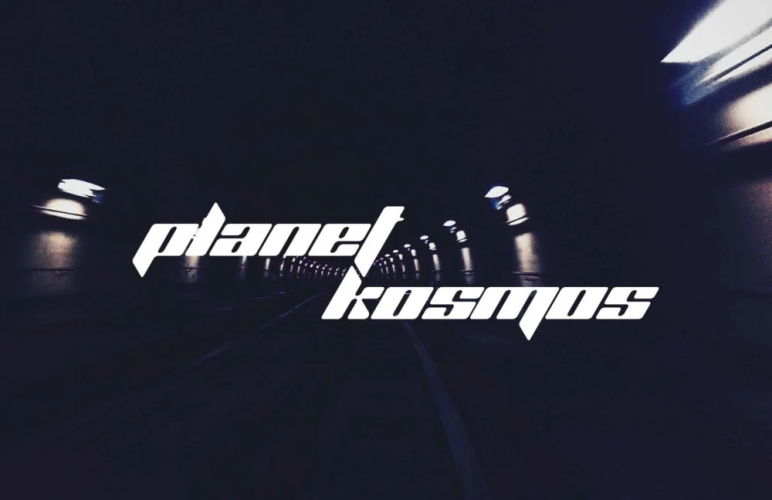
Planet Kosmos Font
Planet Kosmos Font comes only in the regular style (which is bold), semi-light weight, a normal (medium) width. It also supports a limited number of alternate characters. The font is perfect for your operating system. It is very suitable when designing text-based images or logos.
Where Planet Kosmos Font works best
Thumbnails and covers
Planet Kosmos Font is built to be recognised small. Three words, high contrast, and it survives being scaled to a phone screen.
Event and match posters
Display letters at full width make a date and a name readable across a room, which is all a poster has to do.
Merch and streetwear
Heavy display shapes print cleanly on fabric and stay legible when the garment moves.
What kind of work does Planet Kosmos Font suit?
It sits in the Display Fonts group and reads as bold, branding, display, display fonts. That makes it a candidate wherever those qualities help: headings, packaging, social graphics and brand work. Set it at the size you plan to use before deciding.